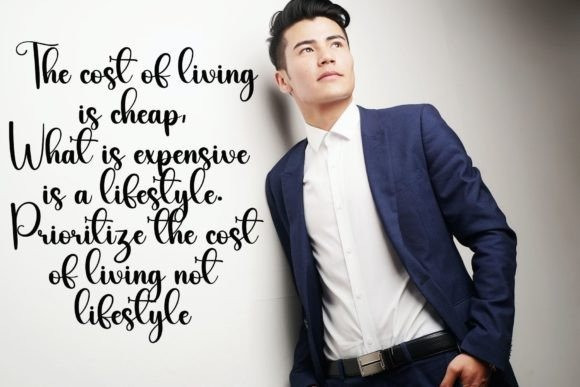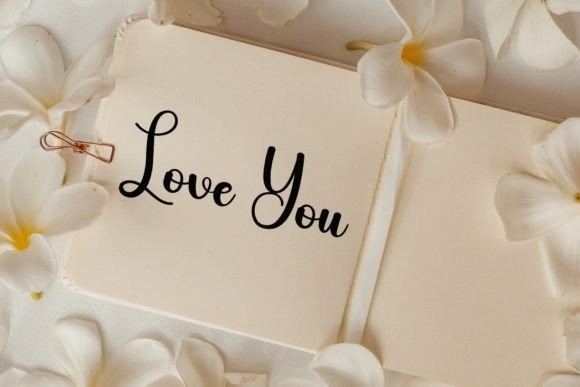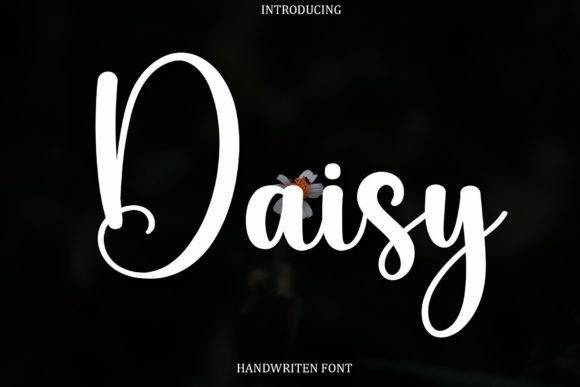
Daisy Script Typeface
Daisy Script Typeface is a delicate and well-rounded handwritten font, perfect for crafty projects that need authentic typography! Use it for wedding invitations, birthday cards, personal branding, elegant logos, or more.